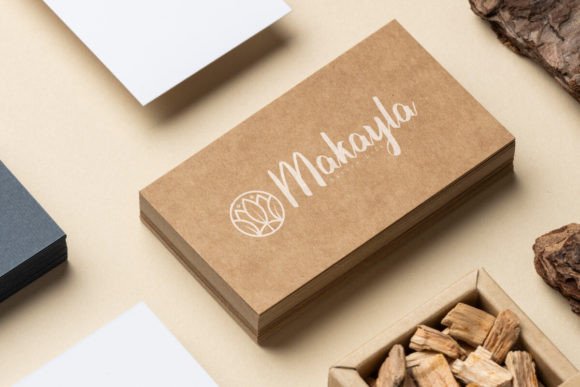
Introducing Bandross Font: The Ultimate Bold Script Font for Stylish Designs
In the world of typography, fonts play a crucial role in conveying the tone and personality of a brand. A well-chosen font can elevate a design, making it more engaging, readable, and memorable. One such font that has gained significant attention in recent times is the Bandross Font, a bold script font created by EdricStudio. In this article, we’ll explore the features, benefits, and uses of the Bandross Font, and why it’s an excellent choice for various industries.
What is Bandross Font?
Bandross Font is a bold script font with a stylish look, designed by EdricStudio. This font boasts a classic touch, with bold letters that make it stand out from the rest. Its unique blend of elegance and boldness makes it an excellent choice for designers looking to add a touch of sophistication to their work.
Key Features of Bandross Font
- Bold and Stylish: Bandross Font is characterized by its bold and stylish letters, making it perfect for headlines, titles, and emphasis text.
- Classic Touch: This font has a classic touch, which gives it a timeless appeal, suitable for various design projects.
- Easily Readable: Despite its boldness, Bandross Font is easy to read, making it suitable for body text and paragraphs.
- Versatile: This font can be used in various industries, including fashion, accessories, handicraft, photography, printing, publishing, restaurant, spa, and more.
Benefits of Using Bandross Font
Using Bandross Font in your design projects offers several benefits, including:
- Enhanced Readability: Bandross Font’s bold and clear letters ensure that your text is easily readable, even at smaller font sizes.
- Unique Identity: This font helps create a unique identity for your brand, setting you apart from competitors.
- Flexibility: Bandross Font can be used in various design projects, from digital media to print materials.
- Time-Saving: With its versatility and readability, Bandross Font saves you time and effort in choosing and pairing fonts.
Industries That Can Benefit from Bandross Font
Bandross Font’s versatility makes it suitable for various industries, including:
- Fashion Brands: Use Bandross Font to create stylish and bold fashion labels, advertisements, and marketing materials.
- Accessories: Add a touch of elegance to your accessory designs, such as jewelry, handbags, and watches.
- Handicraft: Use Bandross Font to create unique and eye-catching labels, packaging, and marketing materials for your handicraft business.
- Photography: Add a professional touch to your photography portfolio, website, or social media graphics with Bandross Font.
- Printing and Publishing: Use Bandross Font for book covers, magazine titles, and other print materials that require bold and stylish typography.
- Restaurants and Spas: Create menus, brochures, and advertisements with a touch of elegance and sophistication using Bandross Font.
Tips for Using Bandross Font Effectively
To get the most out of Bandross Font, follow these tips:
- Pair with Neutral Fonts: Pair Bandross Font with neutral fonts, such as sans-serif or serif fonts, to create a balanced design.
- Use for Headlines and Titles: Use Bandross Font for headlines, titles, and emphasis text to create visual hierarchy and draw attention.
- Experiment with Colors: Experiment with different colors and textures to add depth and interest to your design.
- Keep it Simple: Avoid overusing Bandross Font; keep your design simple and focused to ensure maximum impact.
In conclusion, Bandross Font is a versatile and stylish bold script font that can elevate your design projects. Its classic touch, bold letters, and readability make it suitable for various industries and design applications. By following the tips outlined in this article, you can effectively use Bandross Font to create stunning designs that capture attention and leave a lasting impression.
FAQs about Bandross Font
- Q: What is Bandross Font? A: Bandross Font is a bold script font created by EdricStudio.
- Q: What are the key features of Bandross Font? A: Bandross Font is characterized by its bold and stylish letters, classic touch, and readability.
- Q: What industries can benefit from using Bandross Font? A: Various industries, including fashion, accessories, handicraft, photography, printing, publishing, restaurant, spa, and more, can benefit from using Bandross Font.